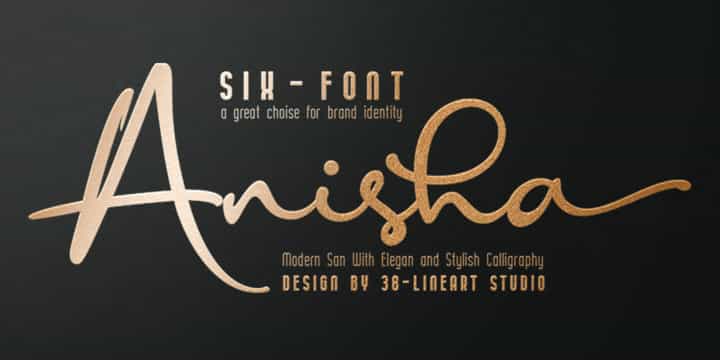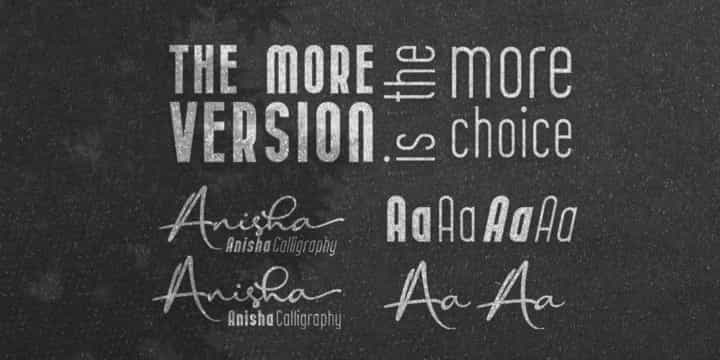
“Anisha” This font is the Great choice for brand identity, branding and just branding … We have seen many branding of modern products, and we found very interesting style, which is the combination of calligraphy signature and clean sans. This is like putting two different things and having them in a composition very appropriate for the luxury and elegance.